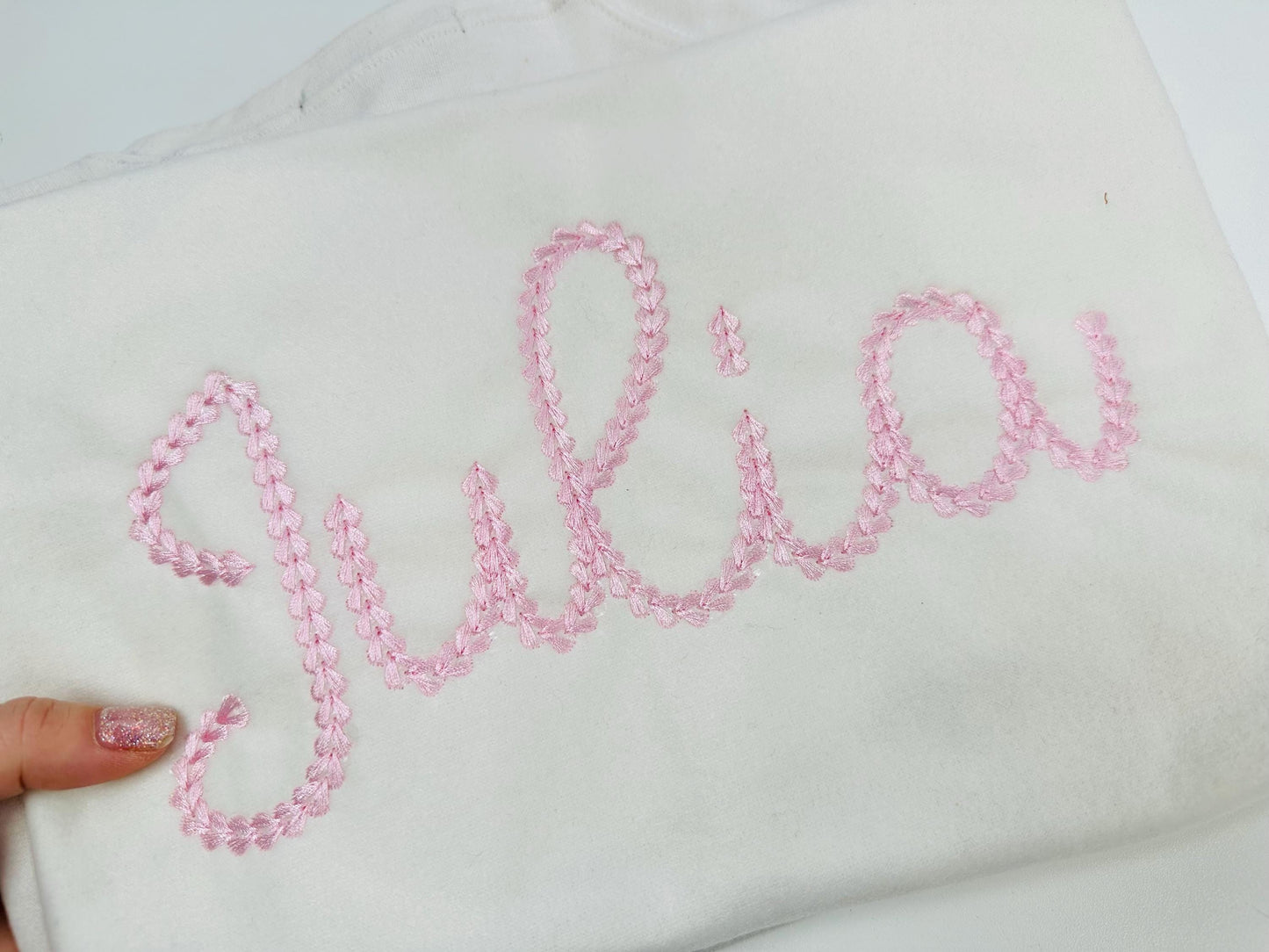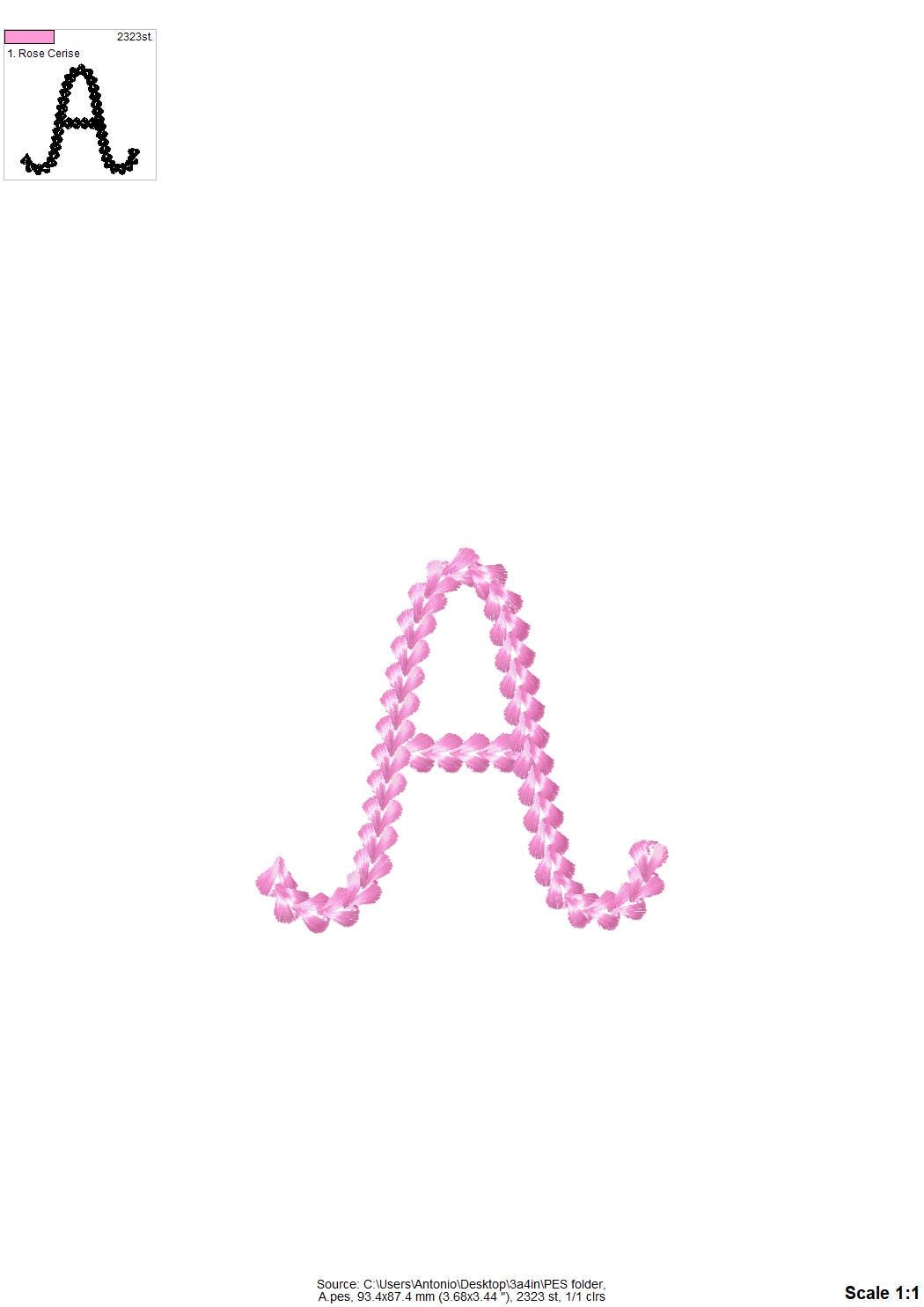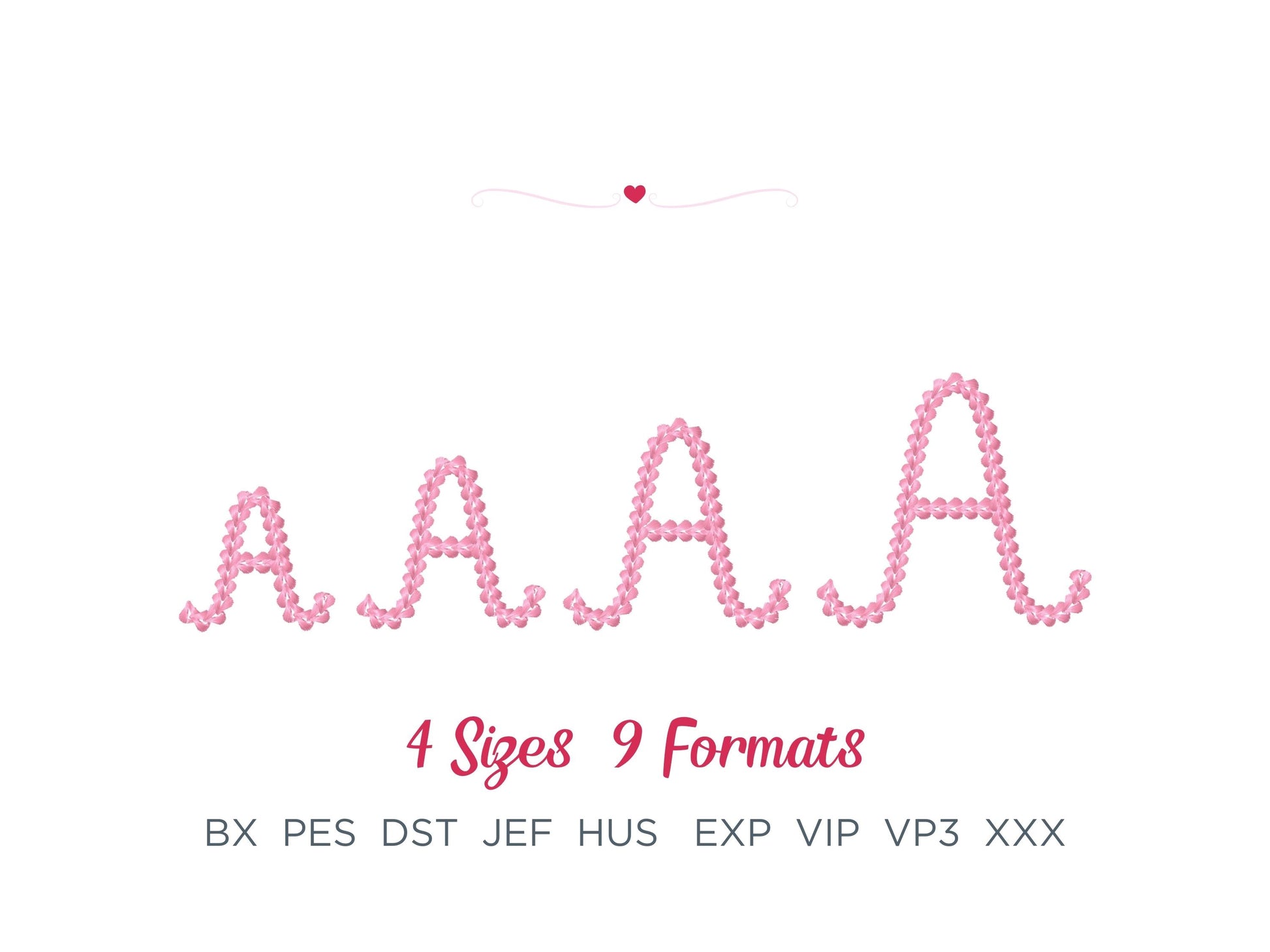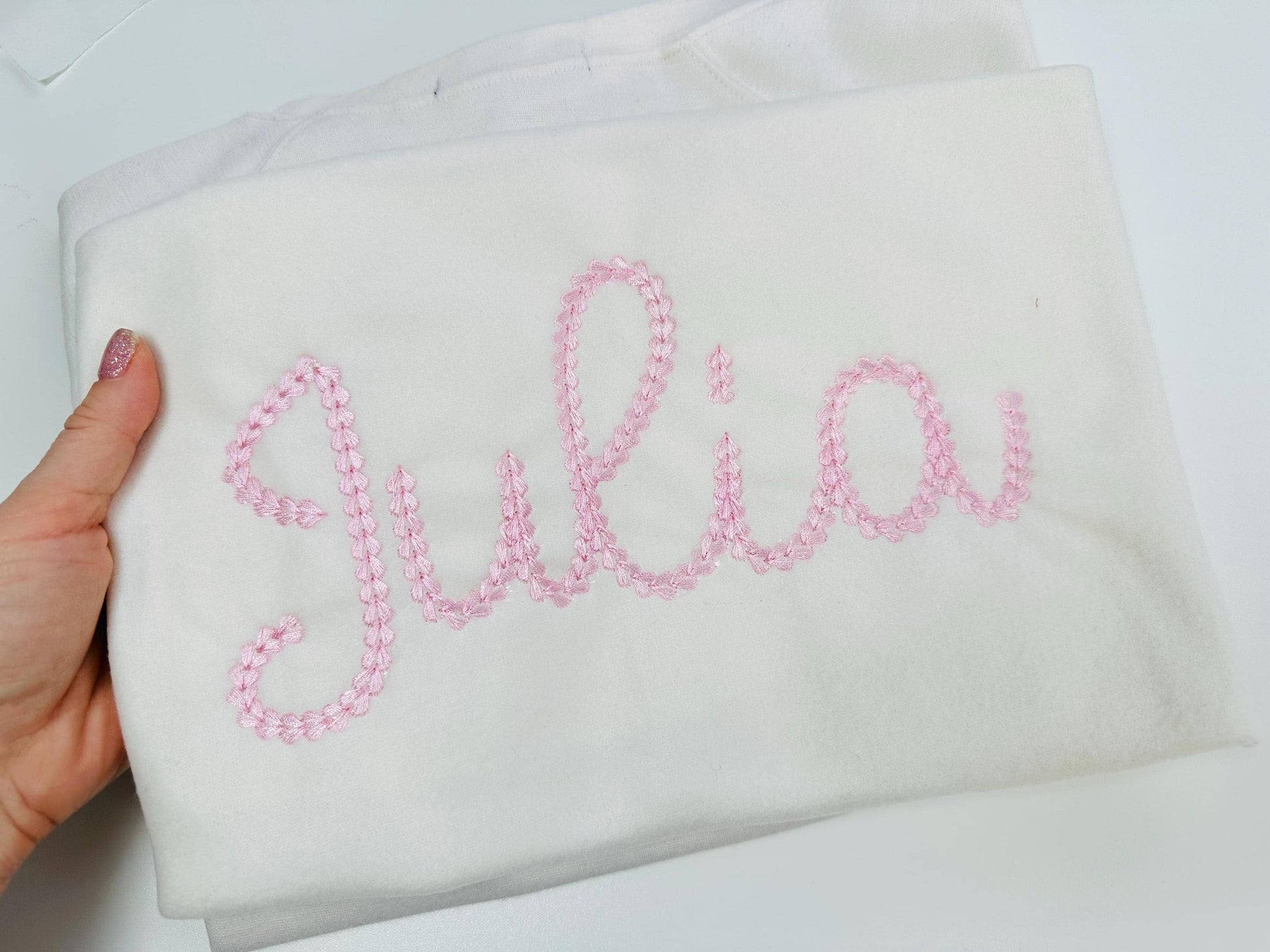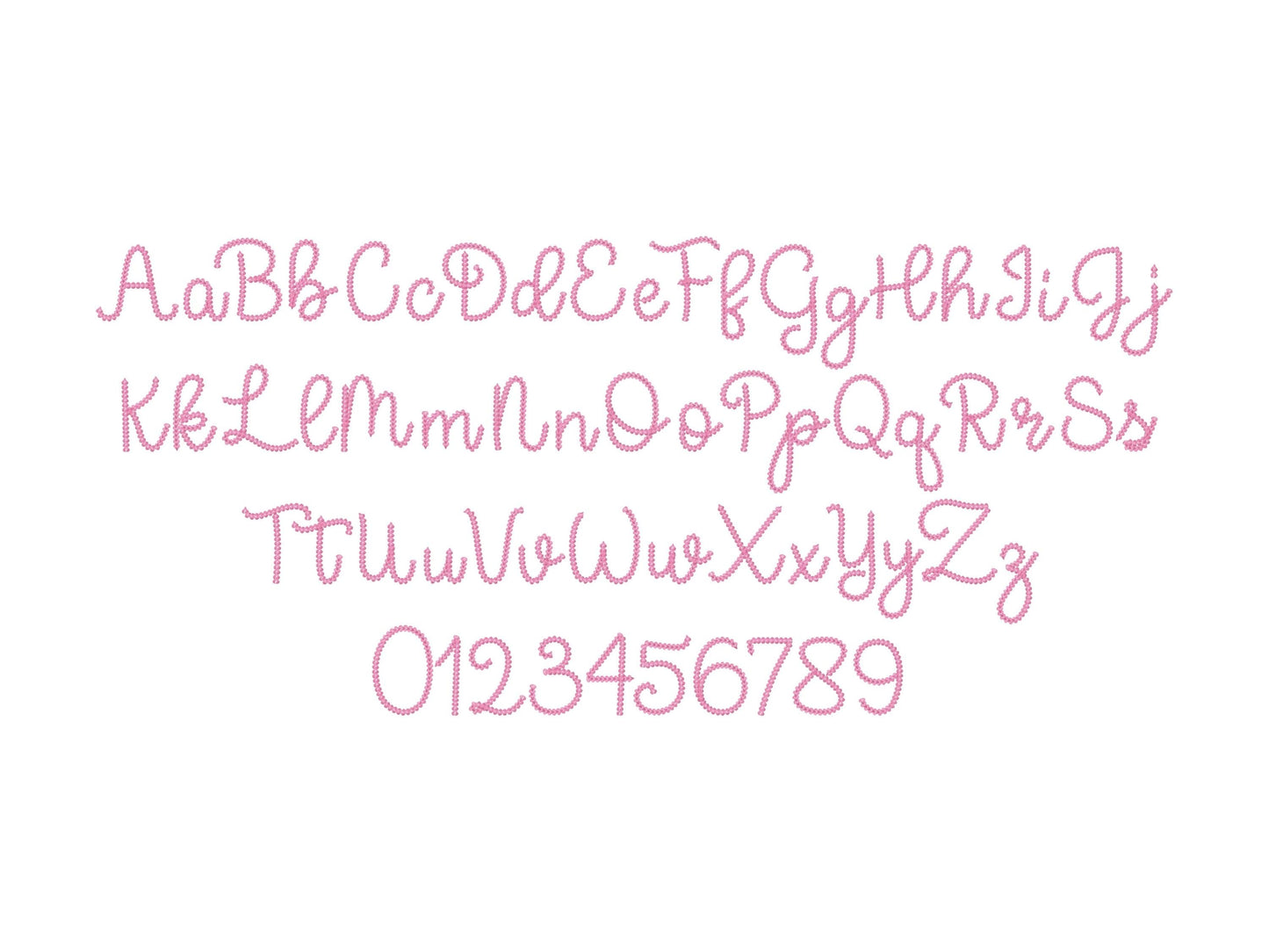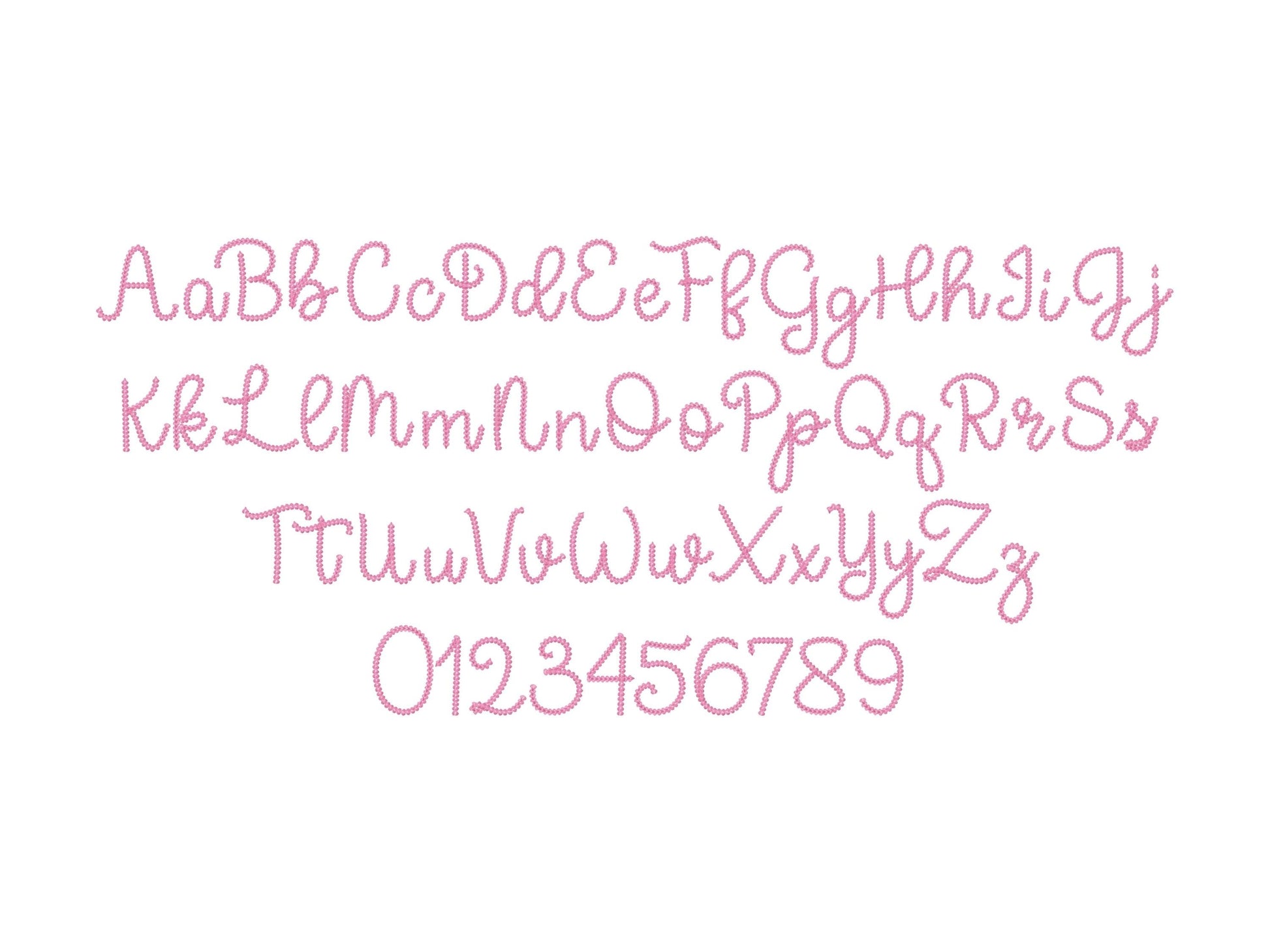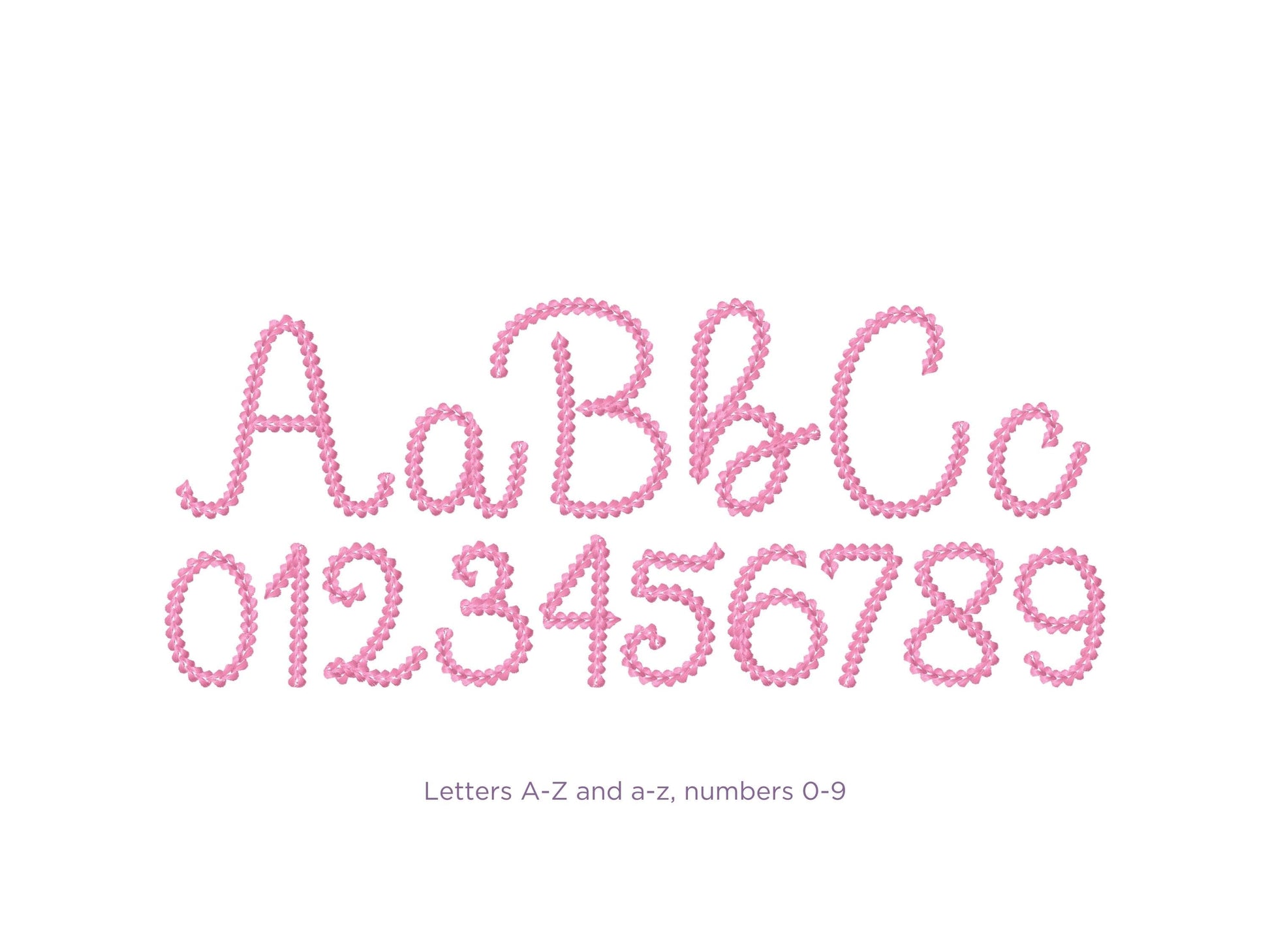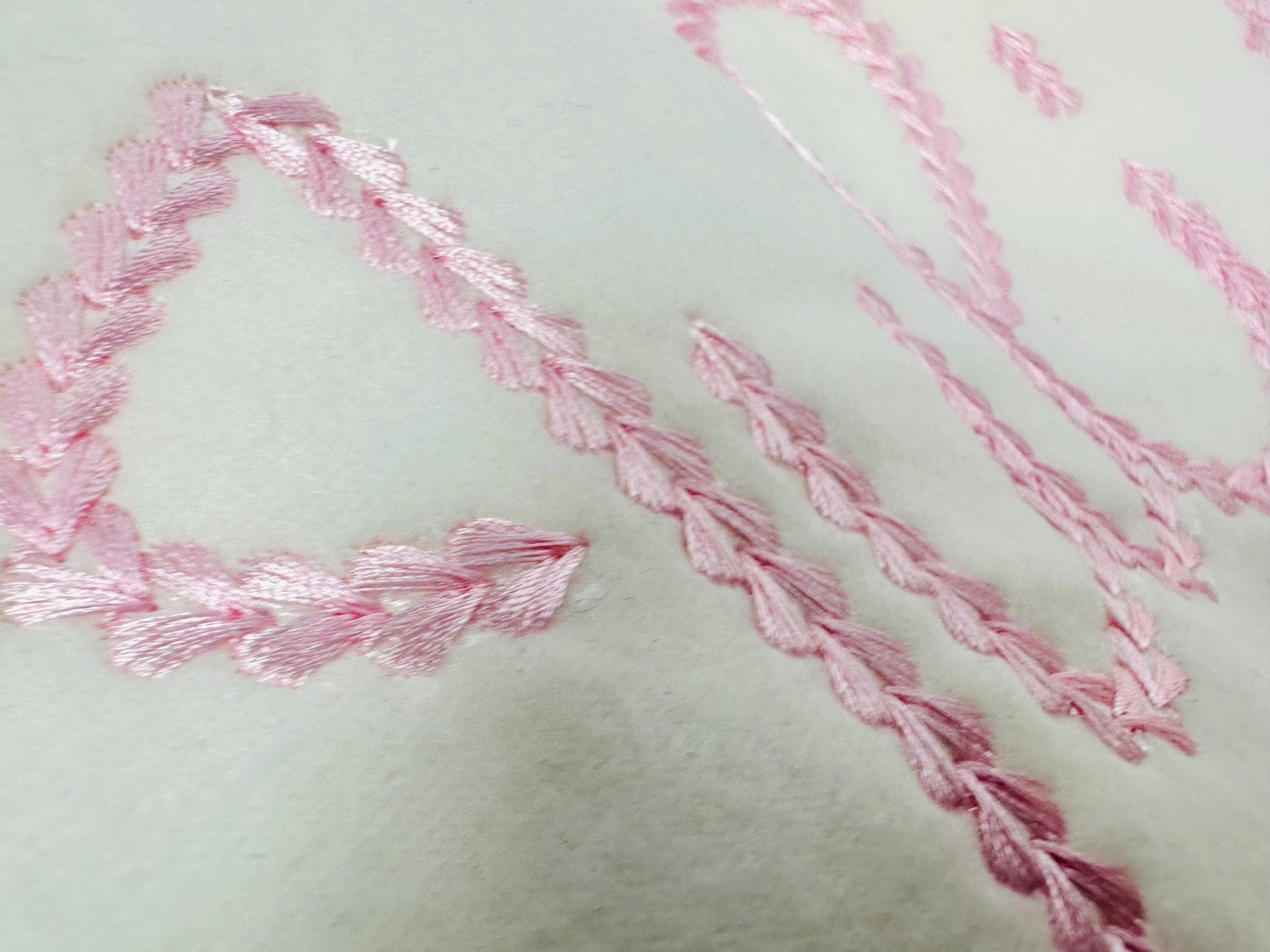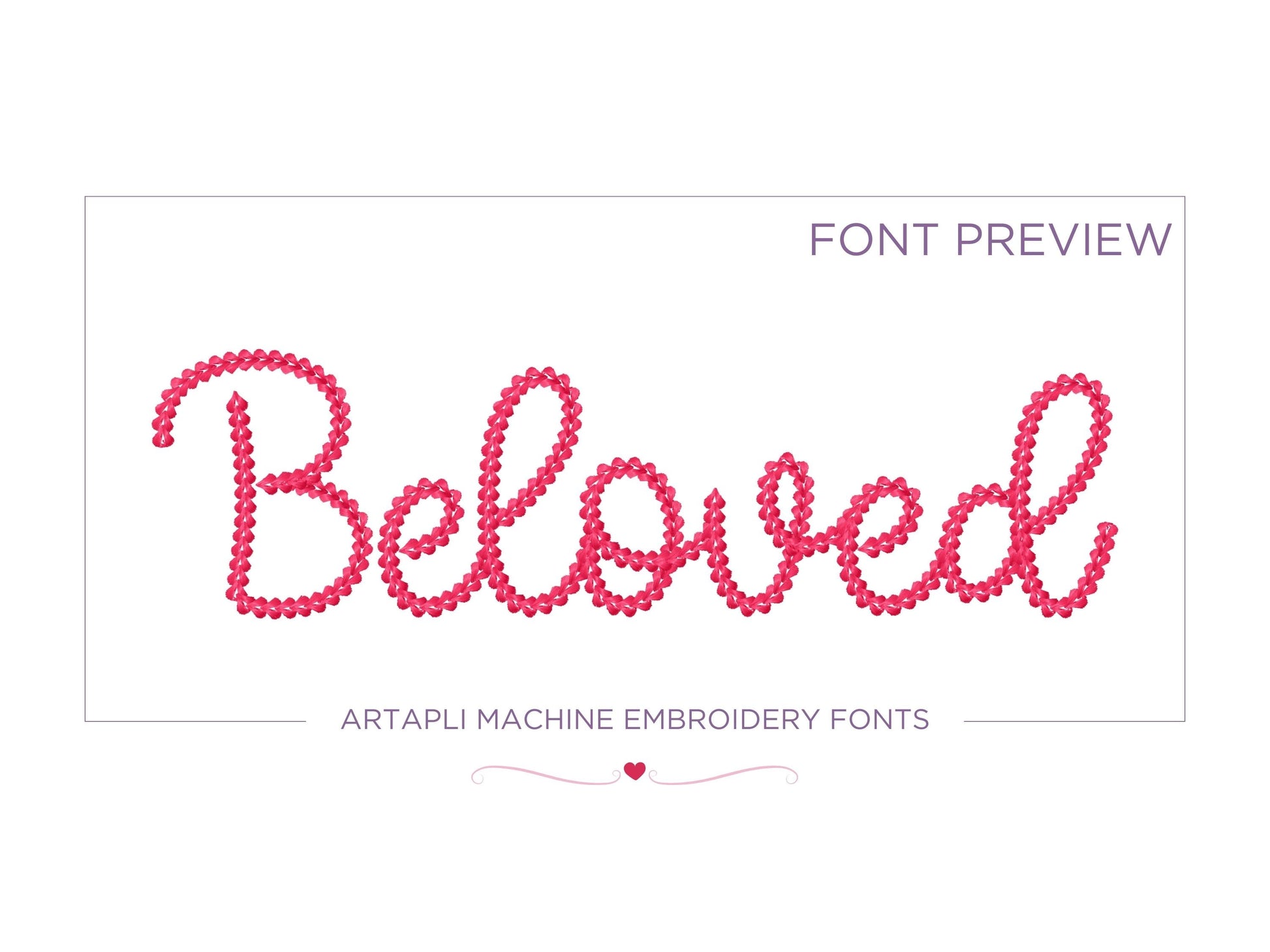
Or click to open the linkAn extra bold chain stitch script with a hand-knit look. Lovely for names and words on sweaters, sweatshirts, hats and blankets.
Uppercase and lowercase letters and numbers 0 to 9. Four sizes: 2.4, 2.8, 3.4 and 4.2 inches.